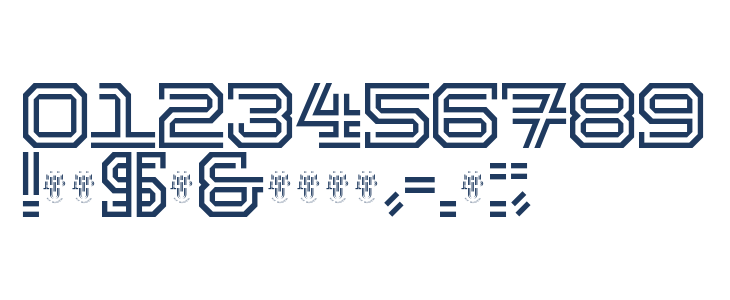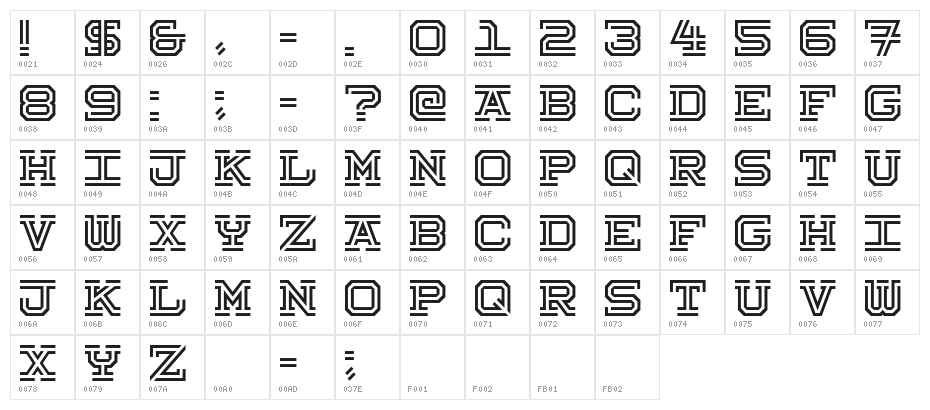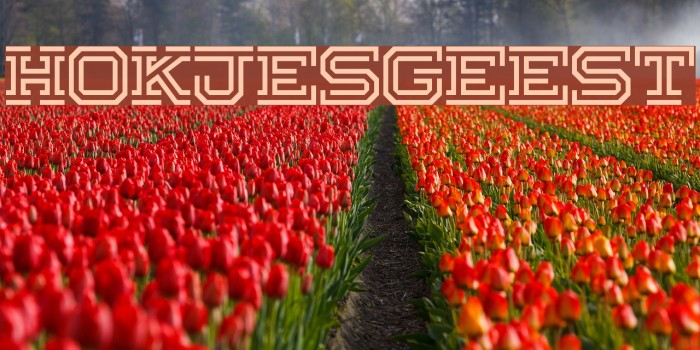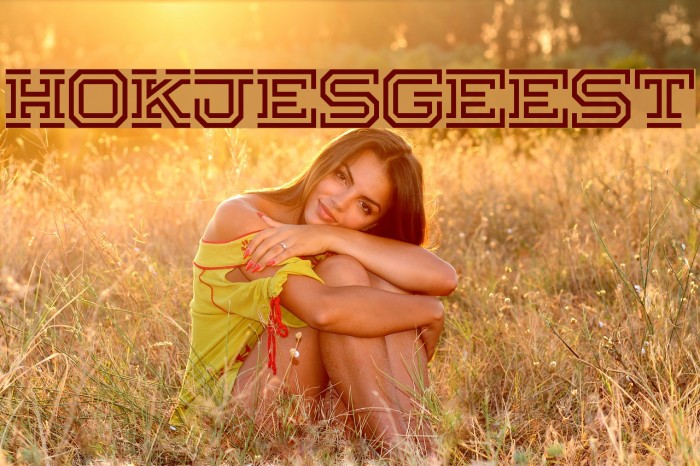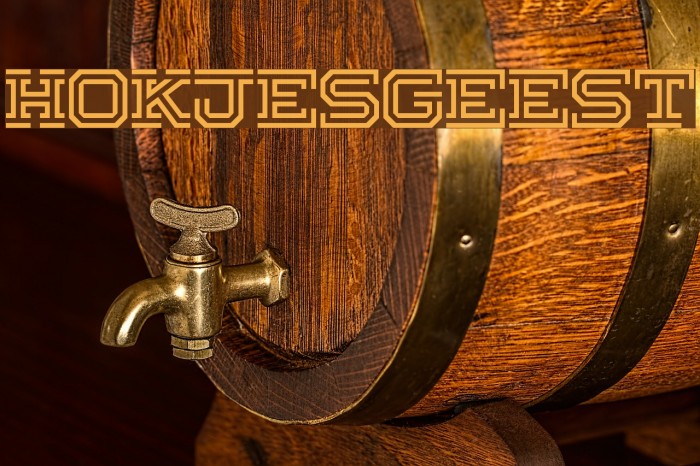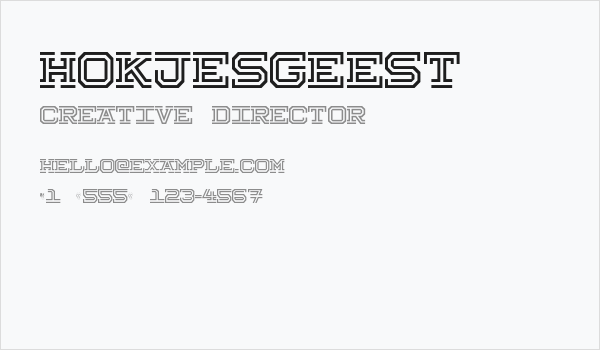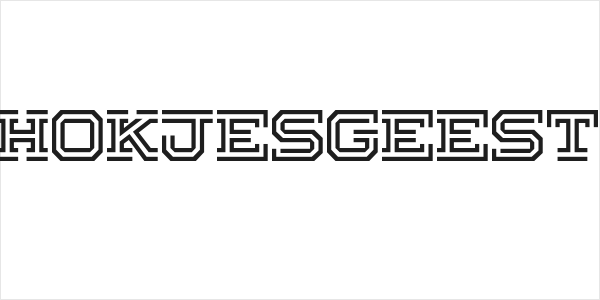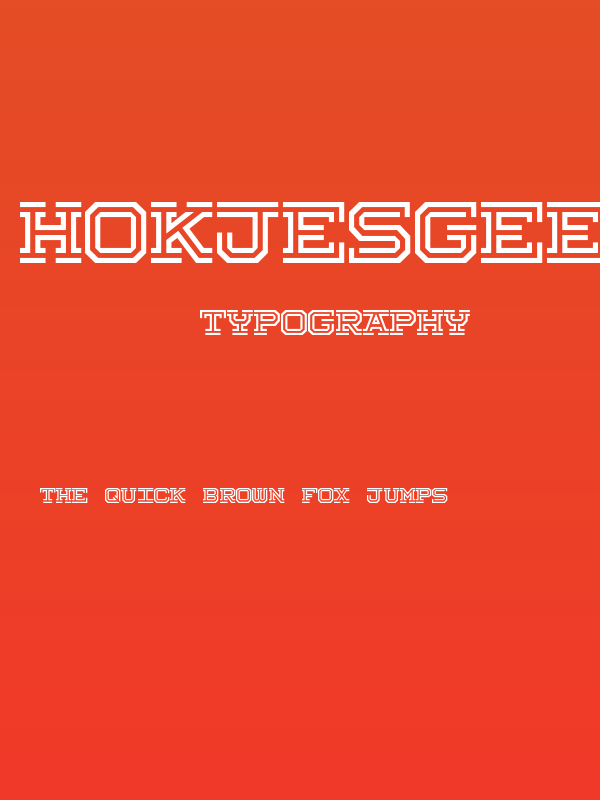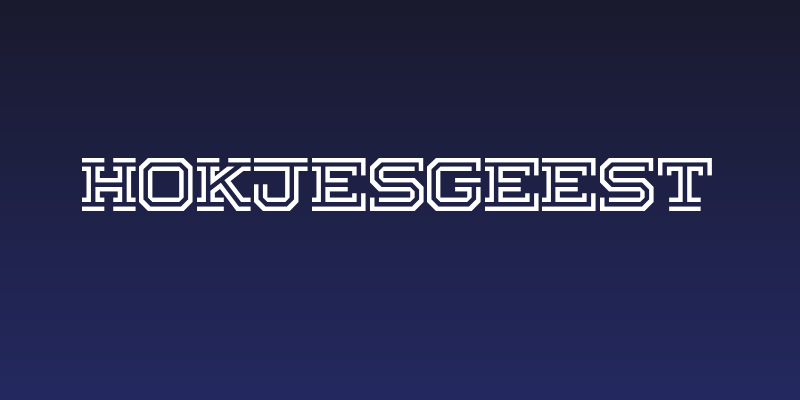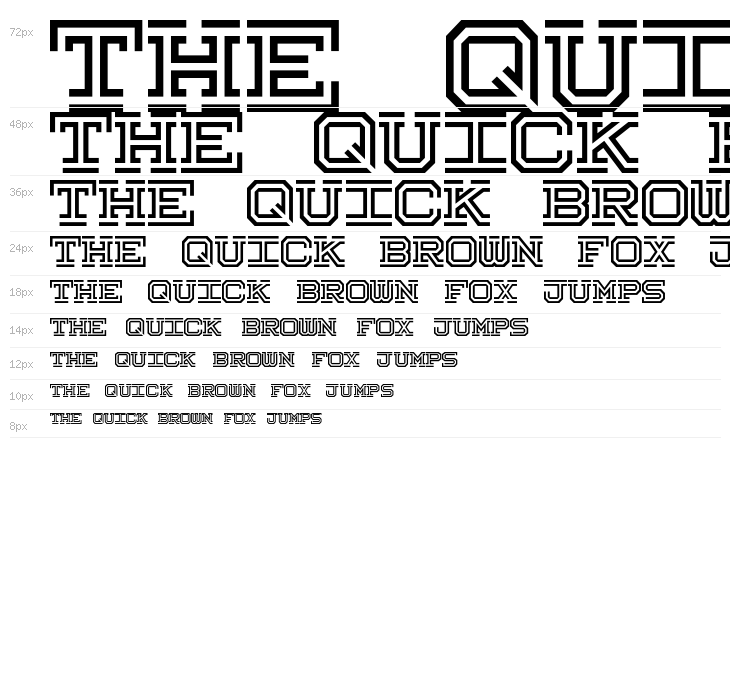
Hokjesgeest Font
Hokjesgeest Description
This font features a bold, geometric design with a distinct double-line structure that creates a sense of depth and dimension. The uppercase letters are characterized by sharp angles and a consistent width, giving them a modern and industrial feel. The numbers and special characters follow the same design principles, ensuring a cohesive look across all elements. The font's unique style makes it stand out, with its intricate detailing and strong presence. It is well-suited for projects that require a bold statement and a contemporary aesthetic.
| Proposed Projects | Ideal for branding, posters, headlines, and any design that requires a strong, modern aesthetic. |